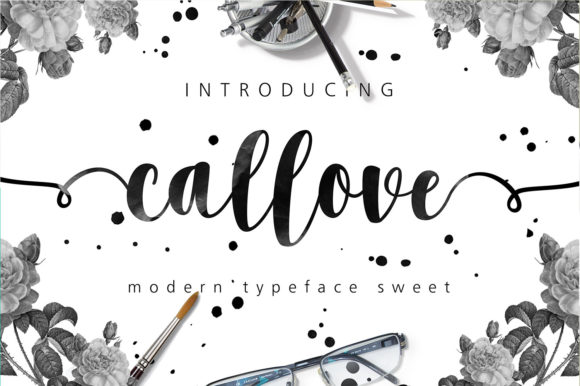
Welcome to the realm of typography, where letters dance upon the canvas of your designs like delicate raindrops, each stroke bearing a story, each curve exuding an emotion. Amidst this universe of fonts, Callove Script Font emerges as an enchanting symphony of elegance and charm. A modern script font brimming with grace and allure, Callove stands ready to transform your creative visions into captivating realities.
Harnessing the allure of the handwritten word, Callove Script Font dances across your designs with a fluidity that mimics the artist's stroke. Its curves flow with an organic rhythm, evoking a sense of authenticity and intimacy that draws viewers in like moths to a flickering flame. Each letter, meticulously crafted, carries the weight of emotion and the promise of a tale waiting to be told.
Whether you seek to adorn your designs with the timeless allure of calligraphy or infuse them with the youthful vibrancy of modern script, Callove Script Font stands as your steadfast companion. Its versatility extends beyond mere words, embracing logos, branding, marketing materials, and even the artistry of jersey numbers, where its bold strokes command attention and inspire awe.
Picture your designs adorning the pages of fashion magazines, where Callove Script Font weaves a tapestry of sophistication and luxury, elevating your creations to the realm of haute couture. Witness your brand's identity take shape, as Callove's strokes etch themselves into the minds of your audience, leaving an indelible mark of distinction.
Imagine the impact of Callove Script Font on your social media campaigns, where its captivating curves and elegant flourishes arrest the scroll of the most discerning viewer, transforming fleeting moments into lasting connections. Your designs will blossom into vibrant expressions of creativity, captivating the hearts and minds of your online community.